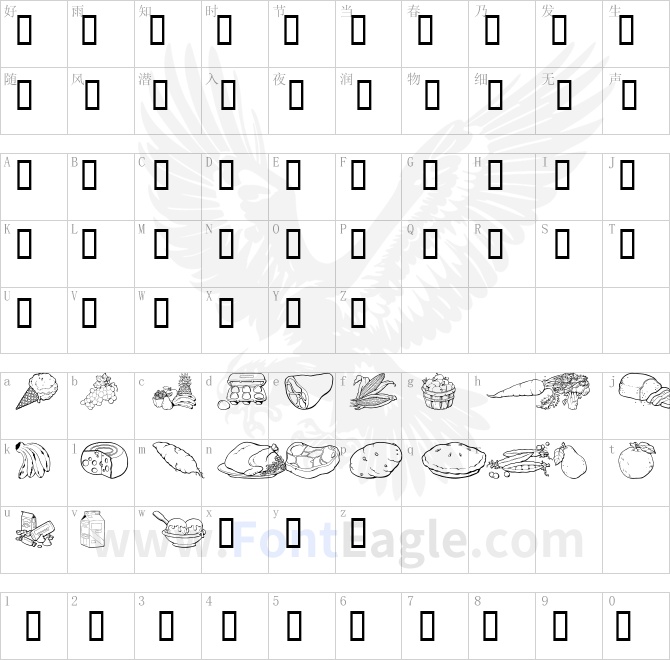
GE-Food-Basket is a great font, widely used in graphic design, single-page menu design, poster design and other fields, and is deeply loved by designers.GE-Food-Basket download.GE-Food-Basket